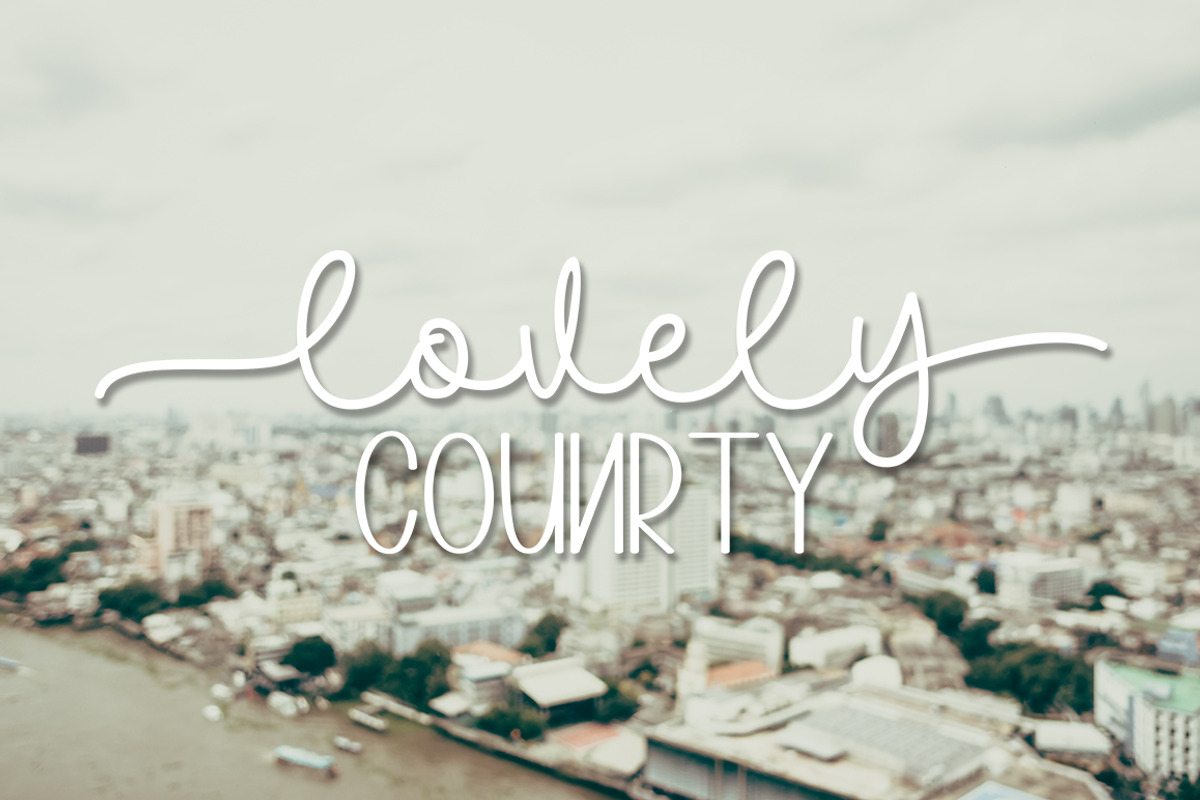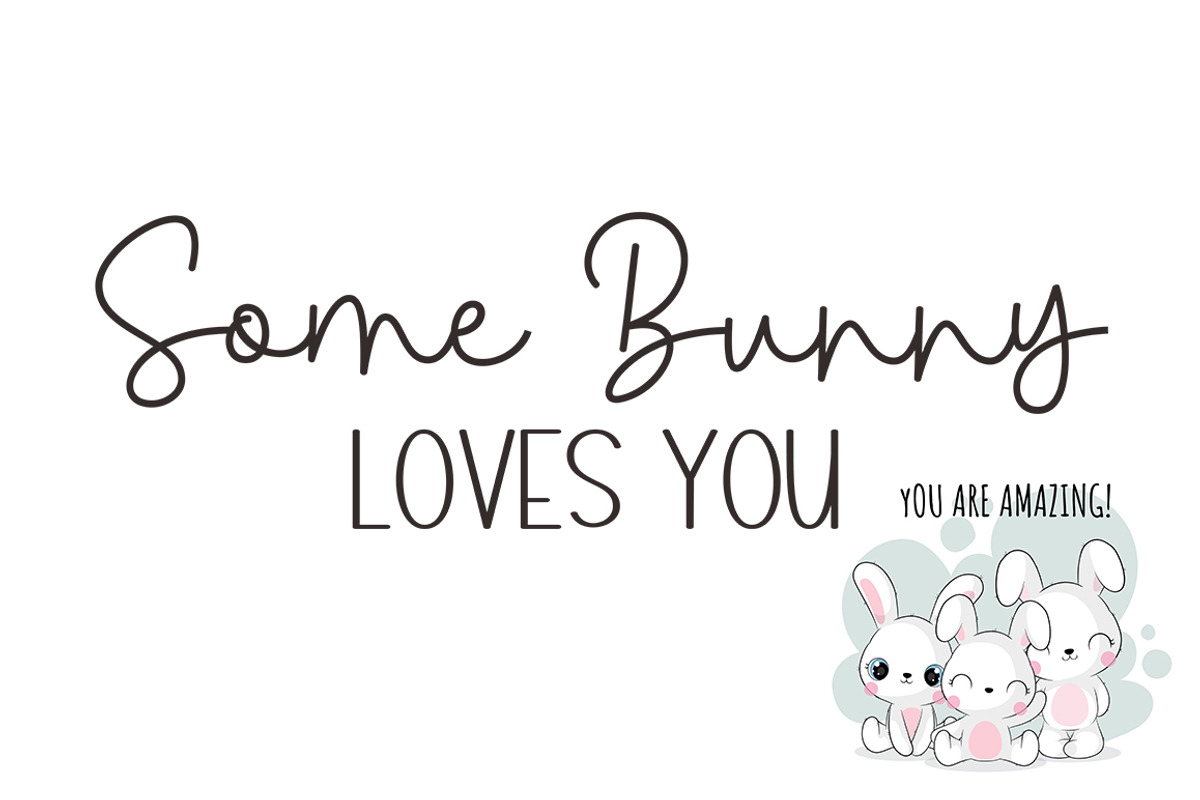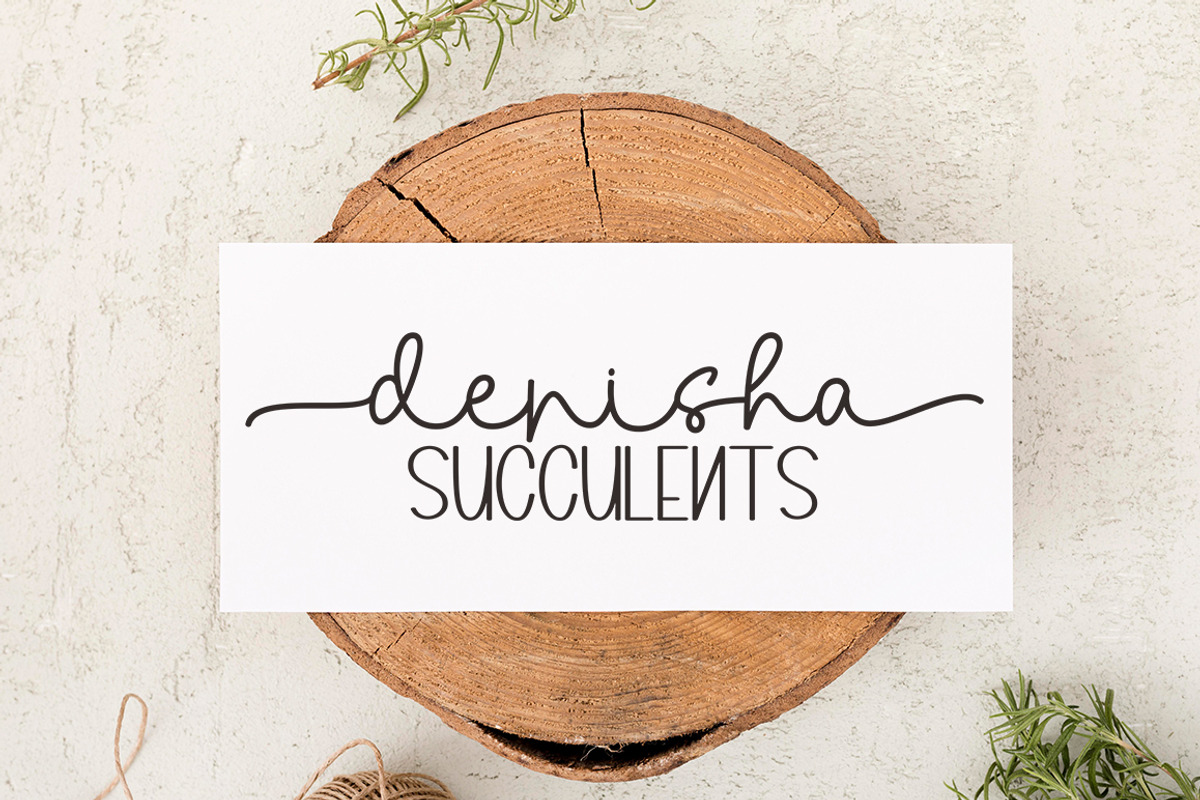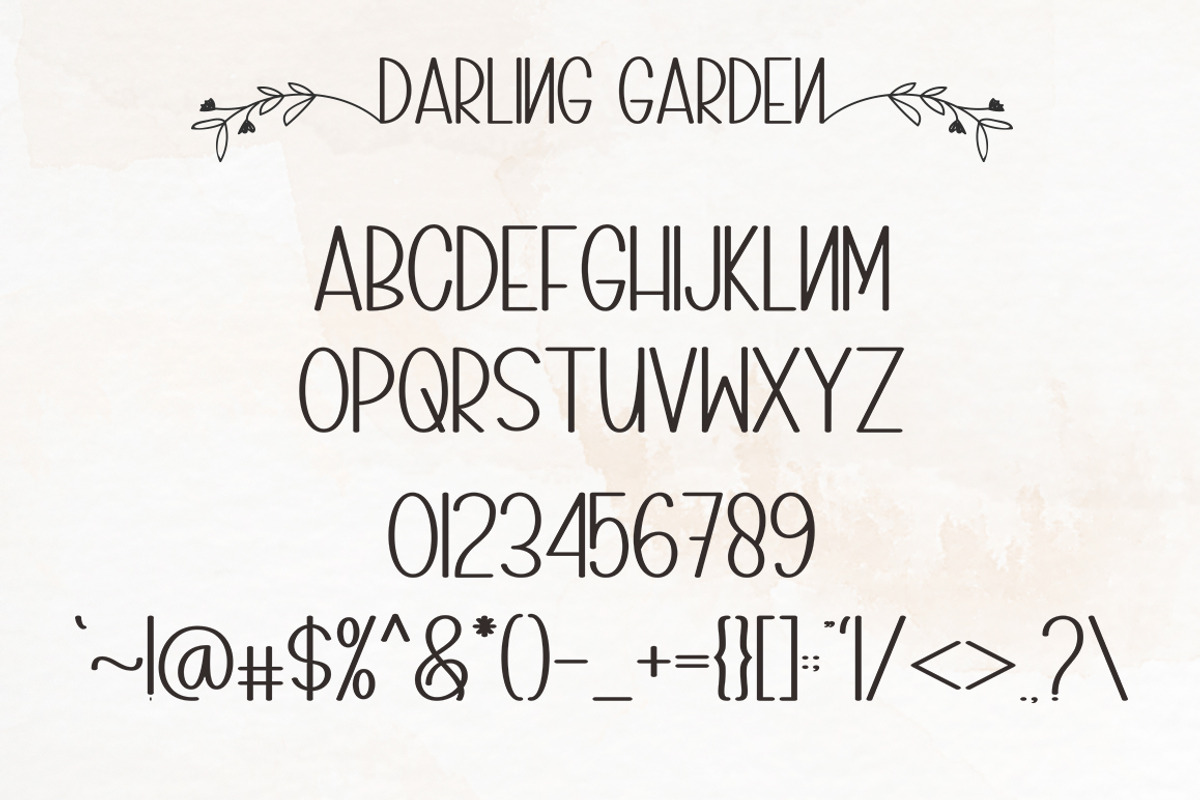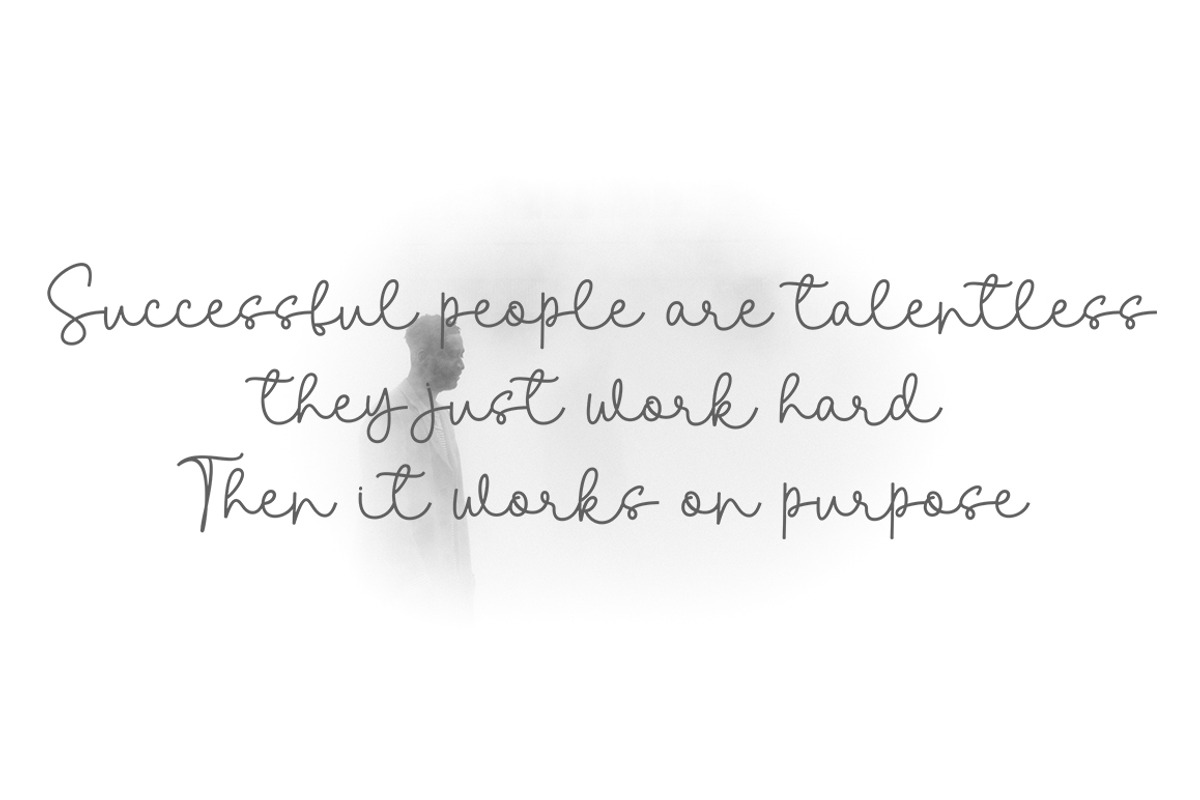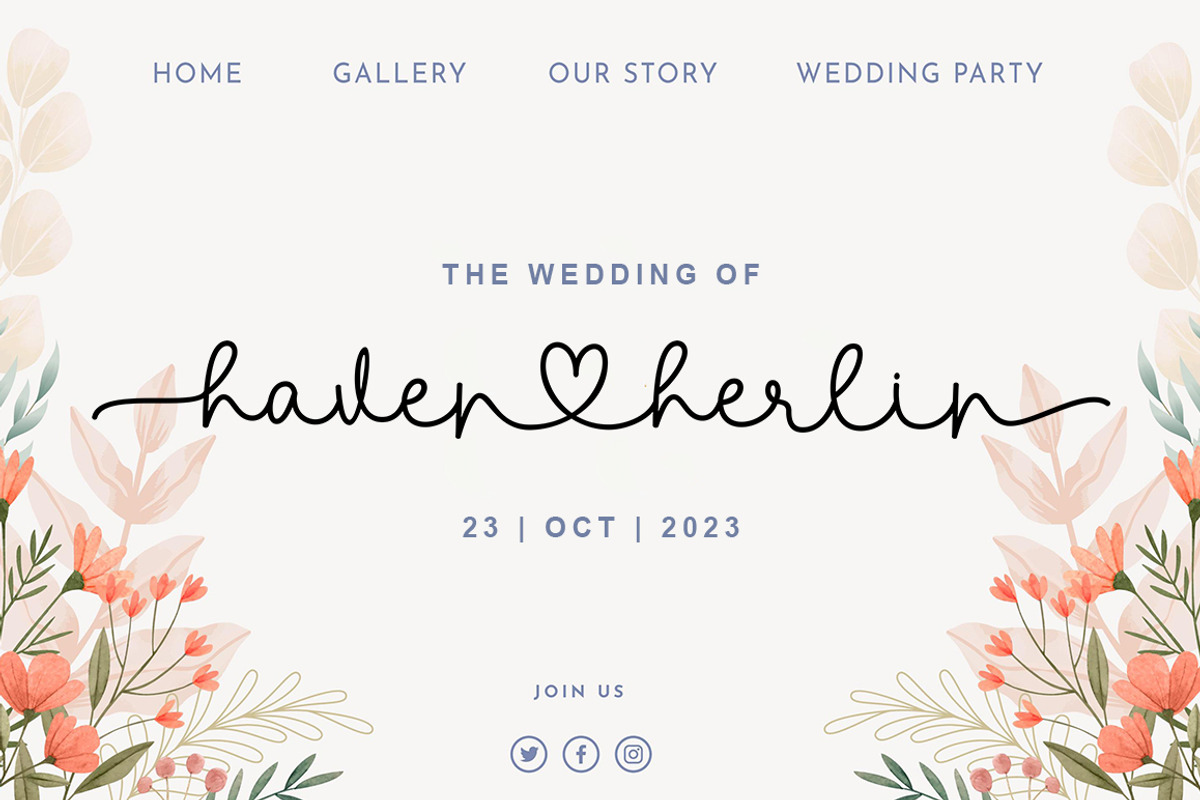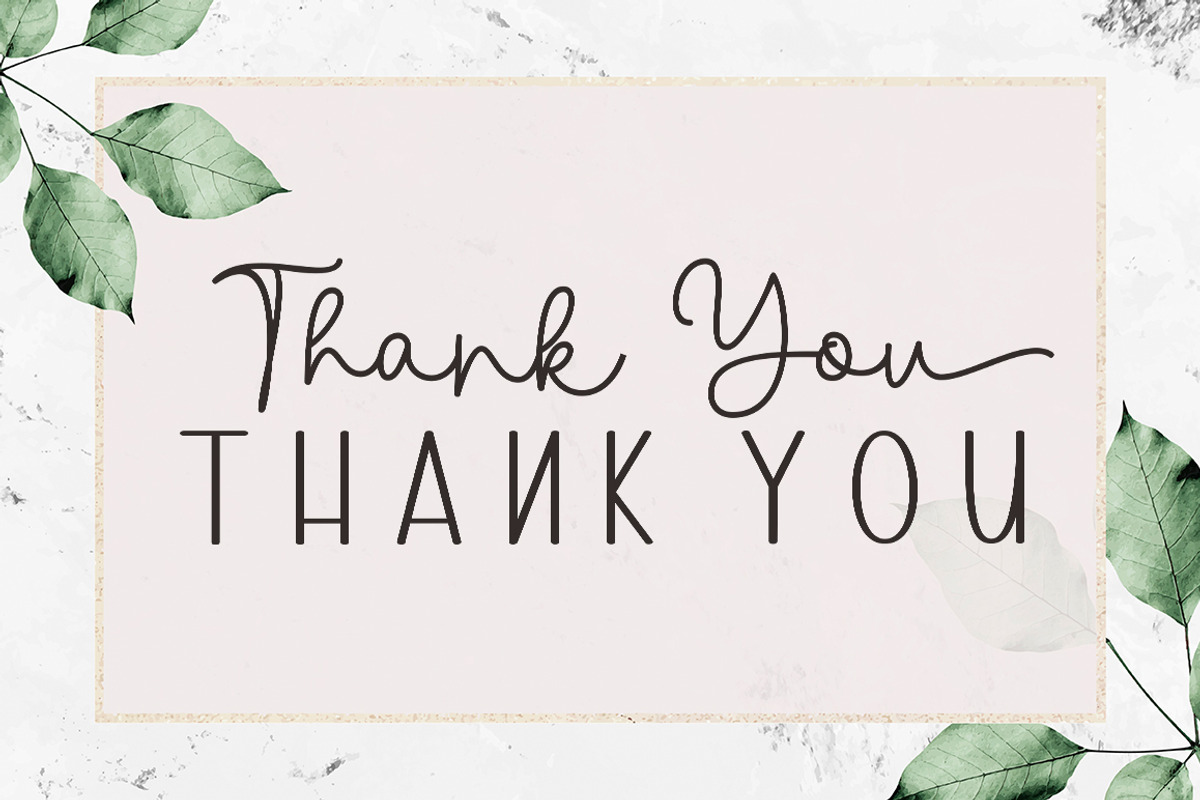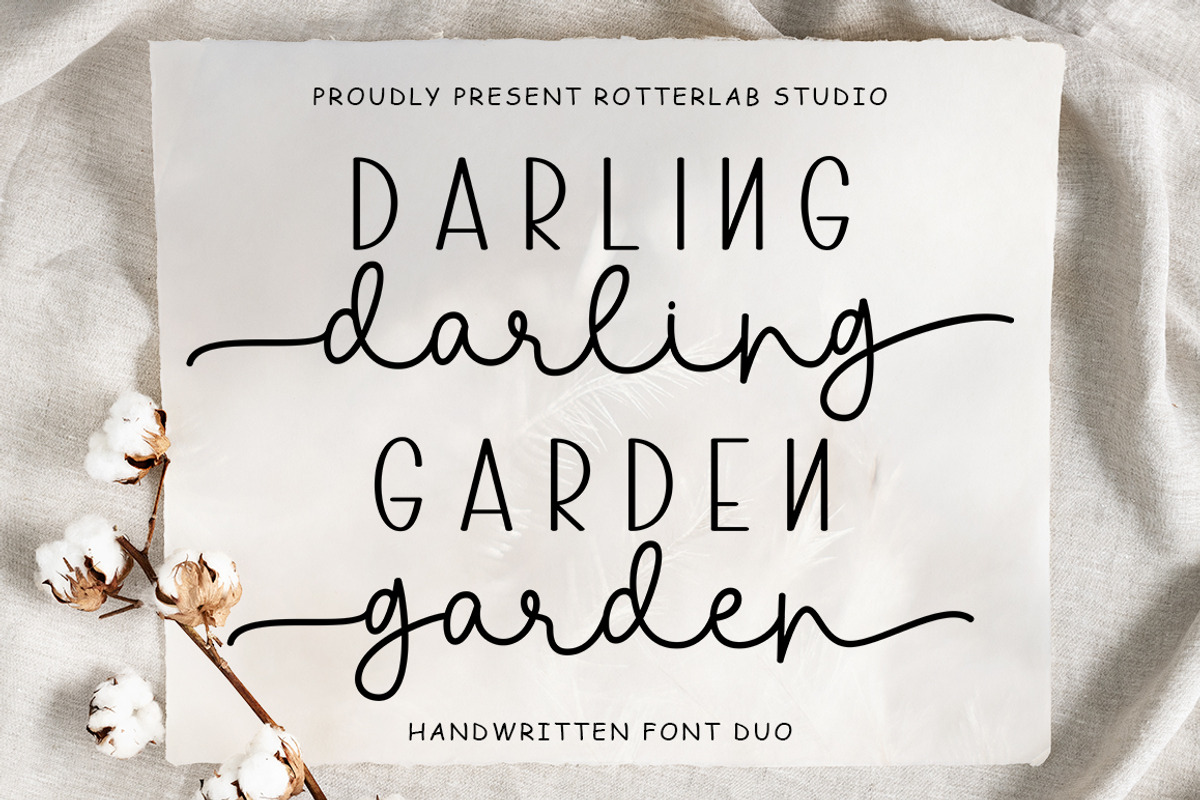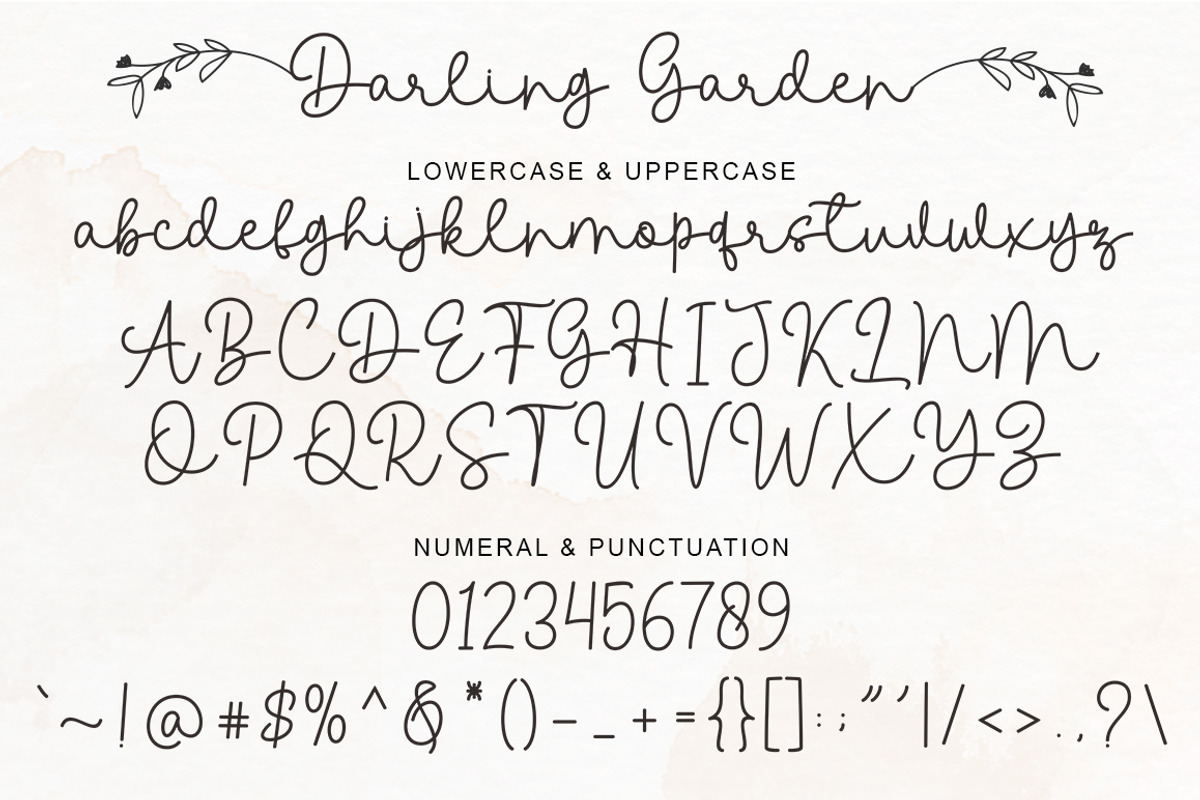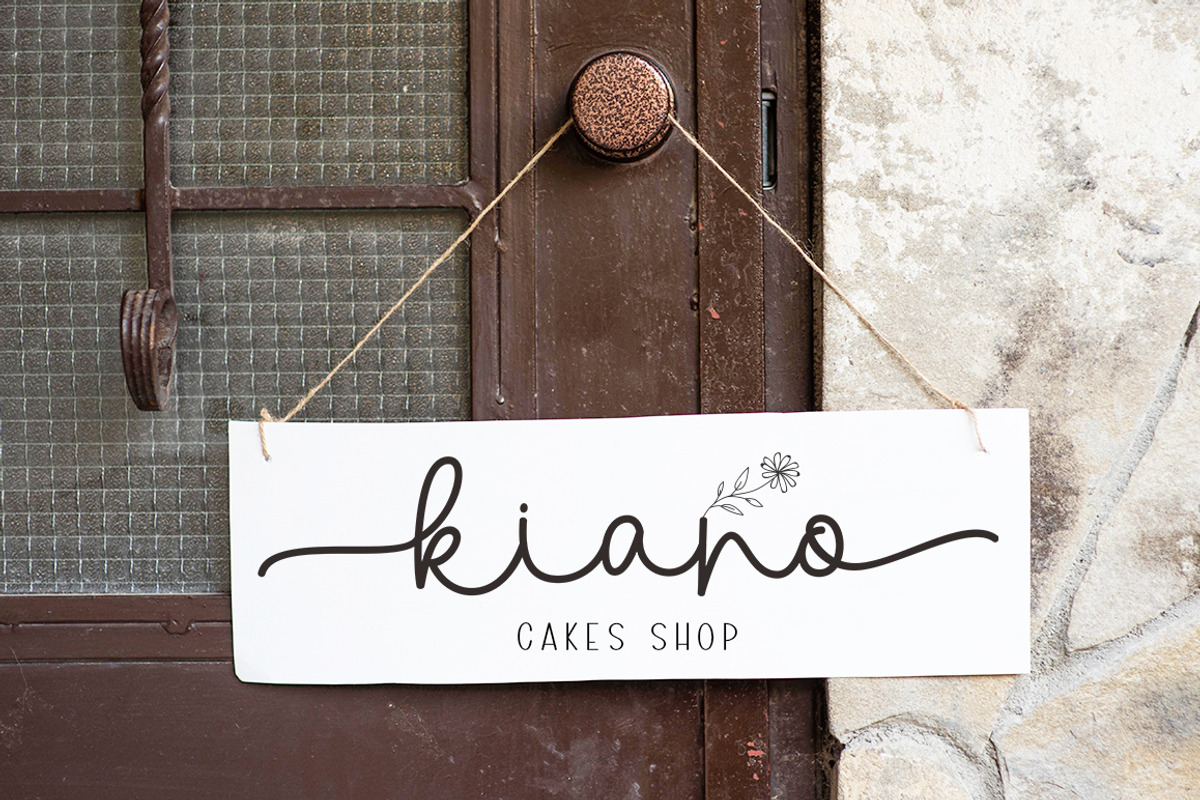
Darling Garden | Font Duo
Darling Garden Font Duo is a new modern script font with an irregular baseline. Stylish and feminine. Sweet Love looks beautiful on wedding invitations, thank you cards, quotes, greeting cards, logos, business cards and many more. Perfect for use in ink or watercolor. Includes initial and terminal letters, alternatives, ligatures, and multiple language support.